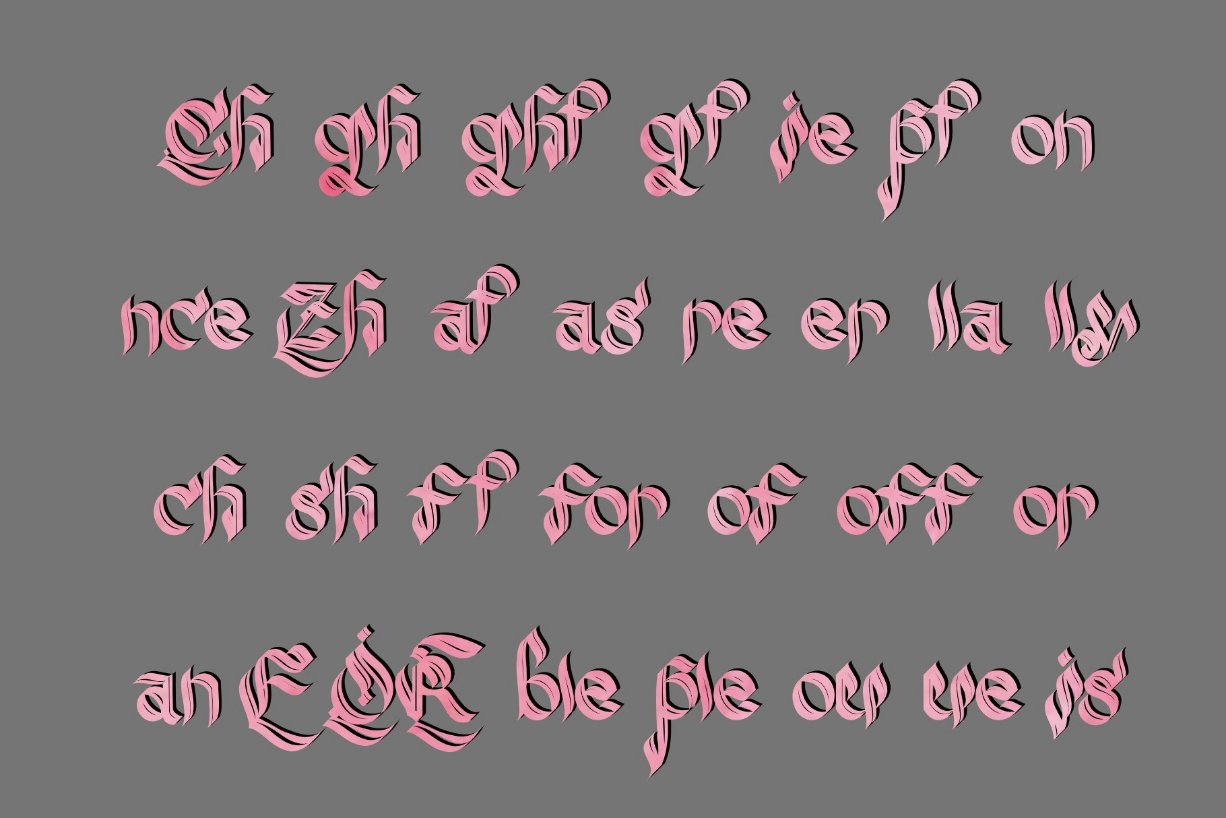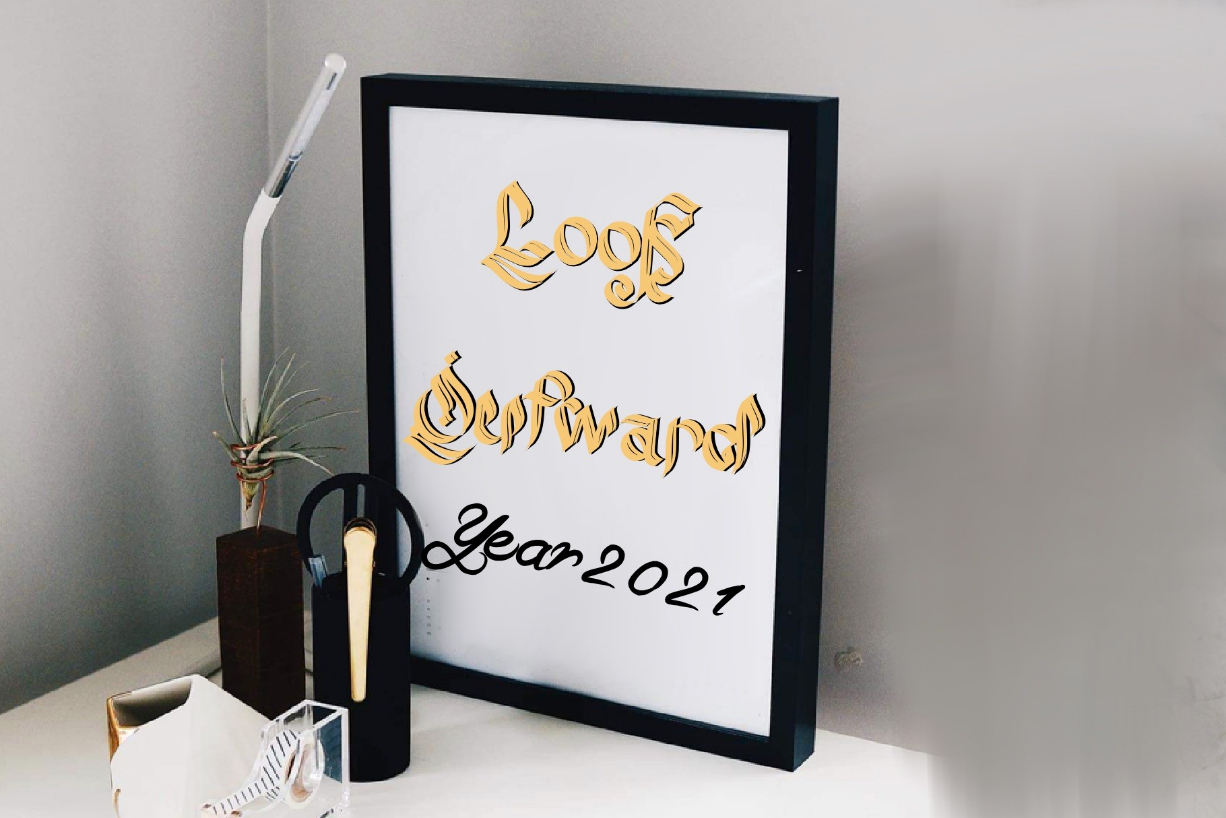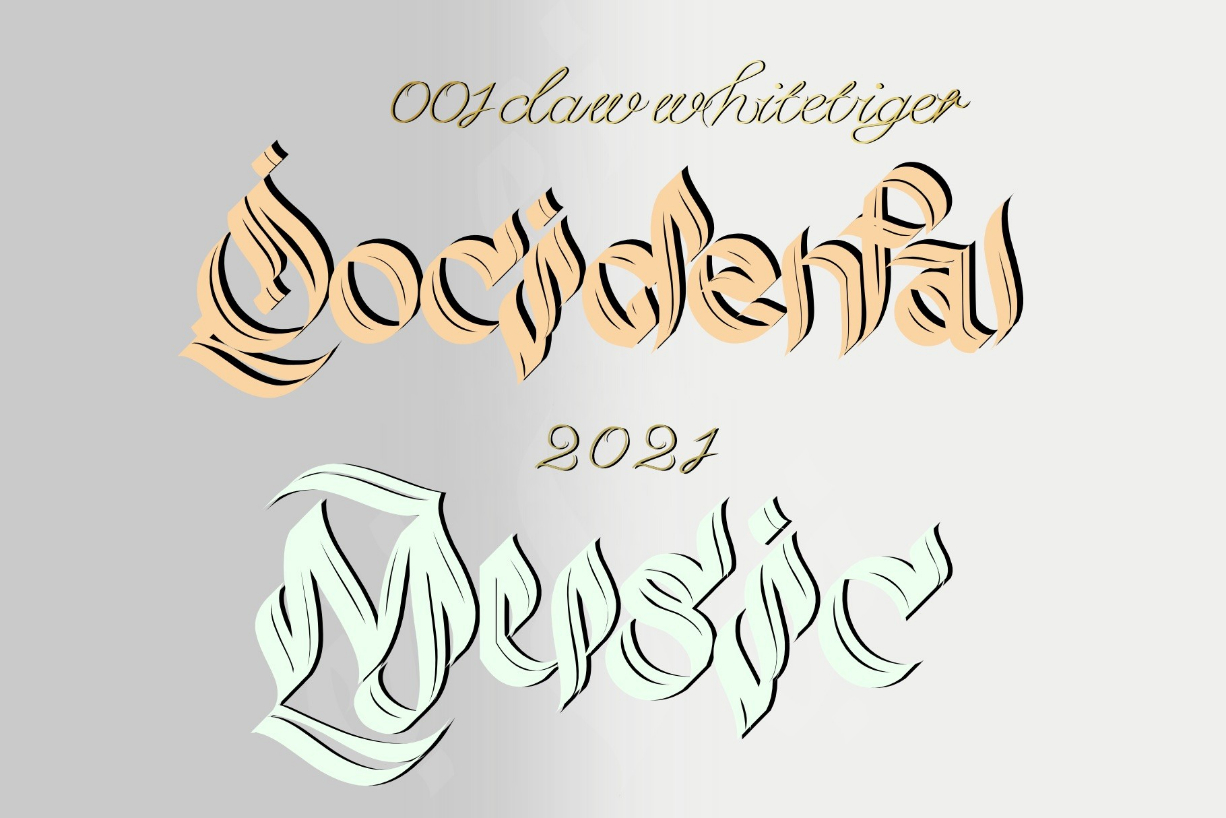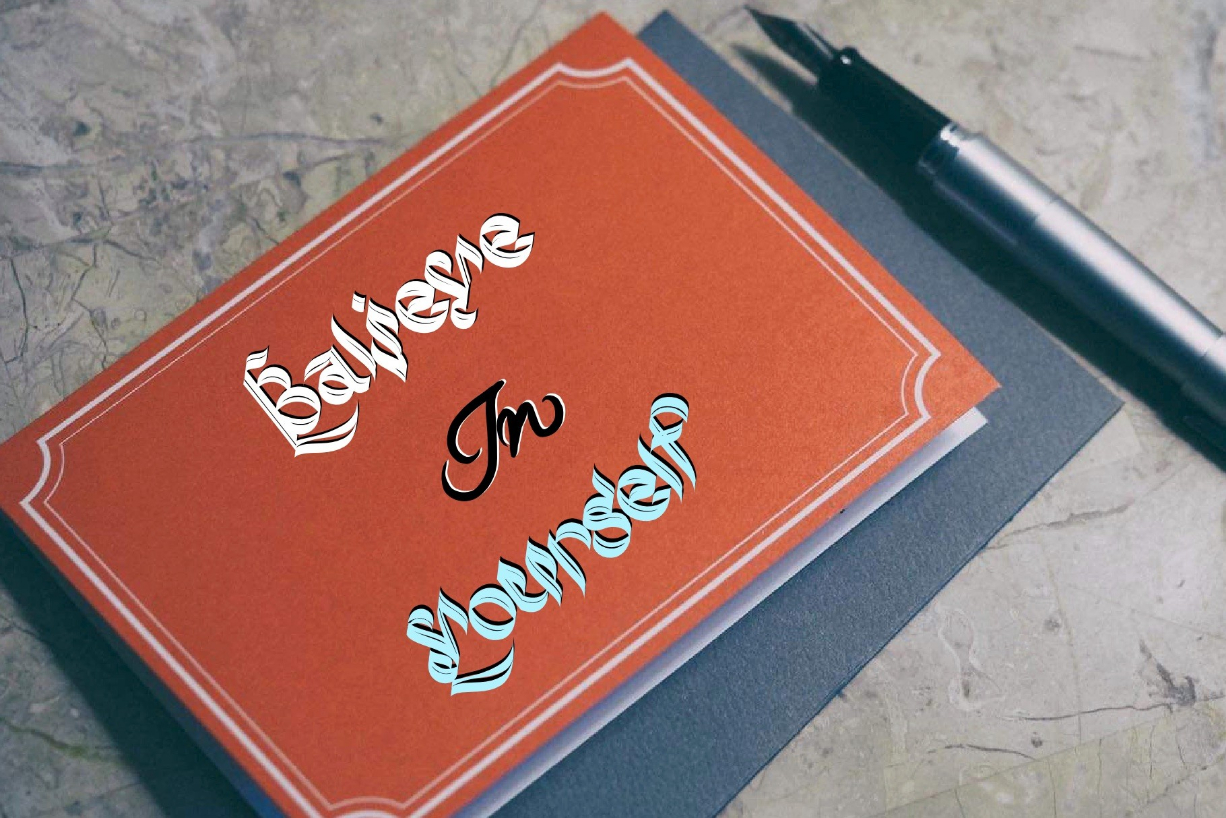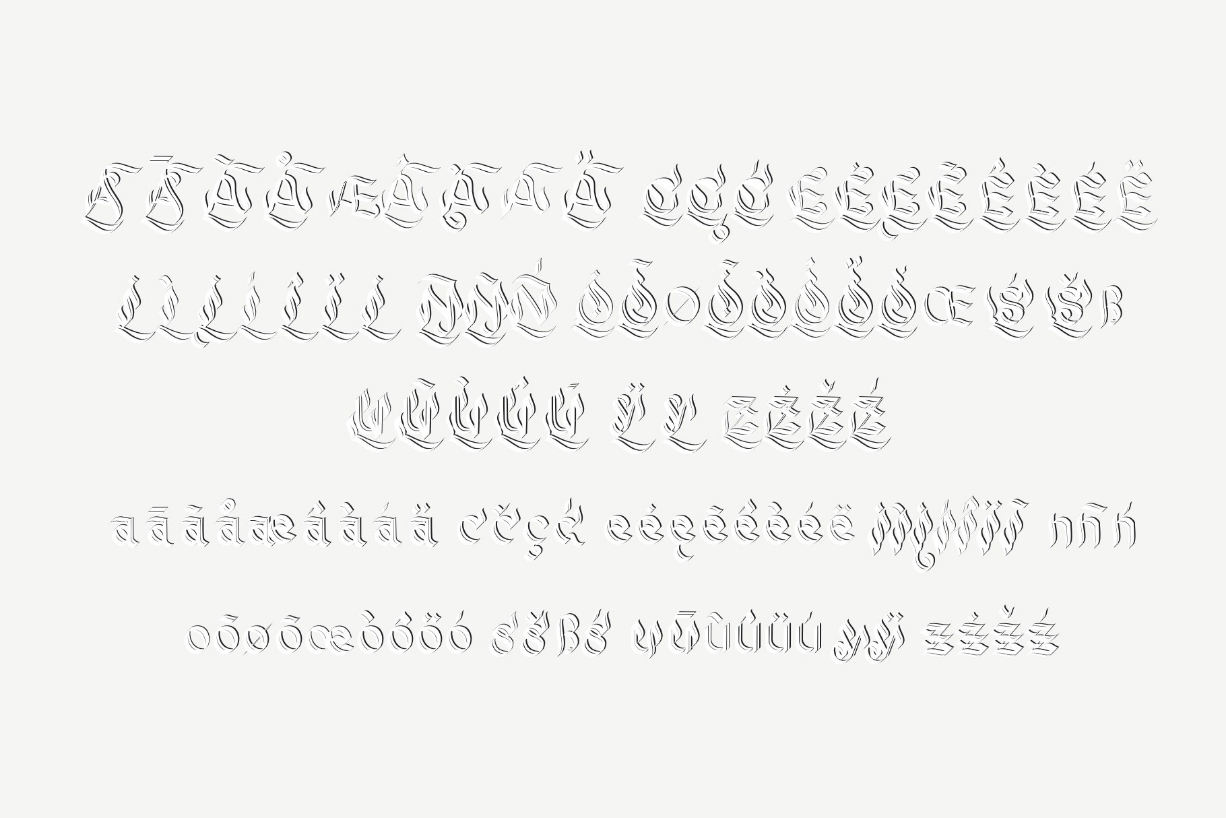
About Claw White Tiger Font
Claw White Tiger is a highly detailed and brushed blackletter font. It looks outstanding on a variety of paintings, branding, labels and so on. The only limit is your imagination!